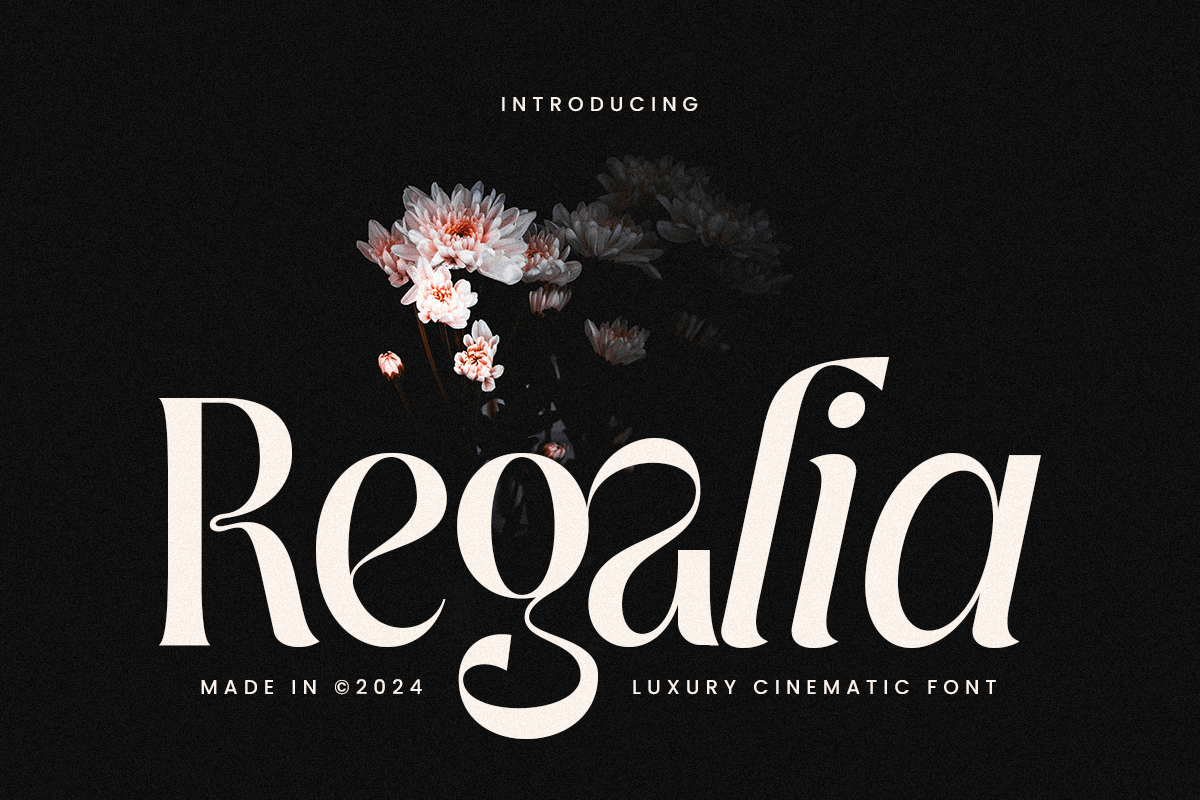
Regalia
-Luxury Cinematic Font
Regalia is a luxury cinematic font that brings a touch of grandeur and elegance to your design projects. With its refined curves and bold yet sophisticated letterforms, it’s the perfect choice for creating high-end logos, movie titles, or branding materials for exclusive products. Regalia’s luxurious style elevates any project, making it ideal for fashion, jewelry, or upscale service branding.
Inspired by cinematic elegance, Regalia was crafted to convey a sense of majesty and timelessness. Each character is designed with precision, ensuring your designs stand out with a professional and polished look. Whether you're designing a title sequence for a film or crafting a logo for a premium brand, Regalia’s bold presence adds weight and drama to your work. With its balance of luxury and cinematic flair, Regalia is versatile enough to work in both large and small formats. Elevate your designs with Regalia’s classic beauty and modern sophistication, bringing a sense of regality to your next project.
Regalia Luxury Cinematic Font Features:
• Luxury Ligature Characters Ready